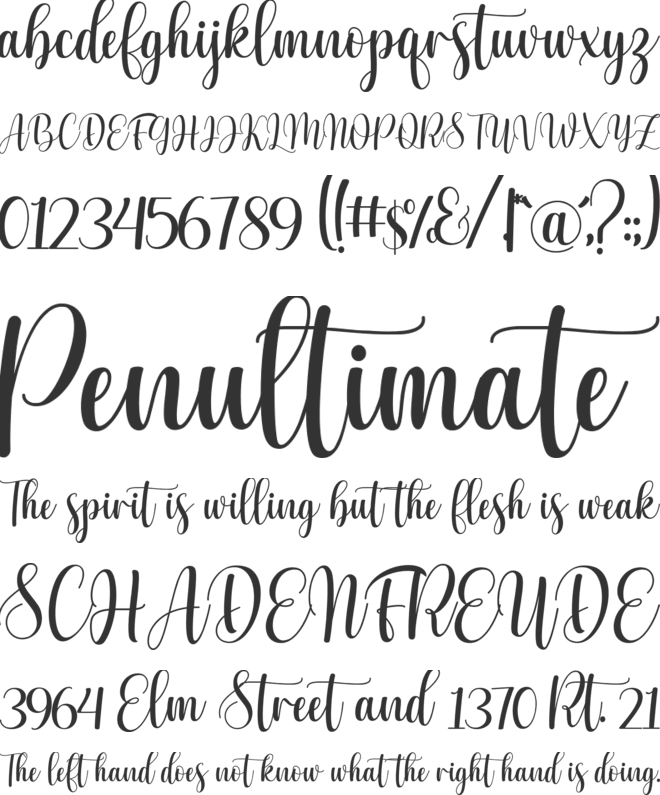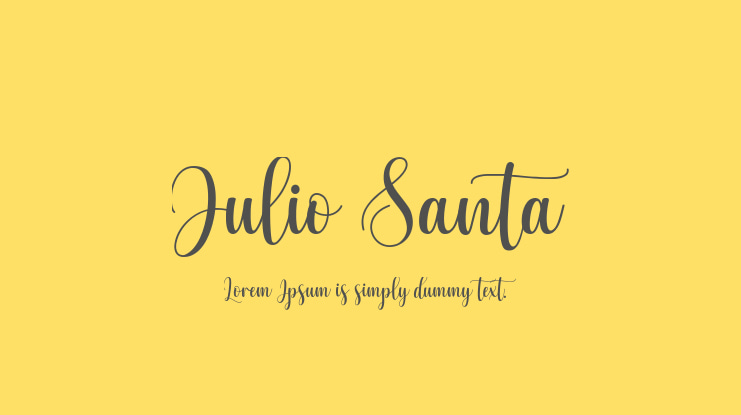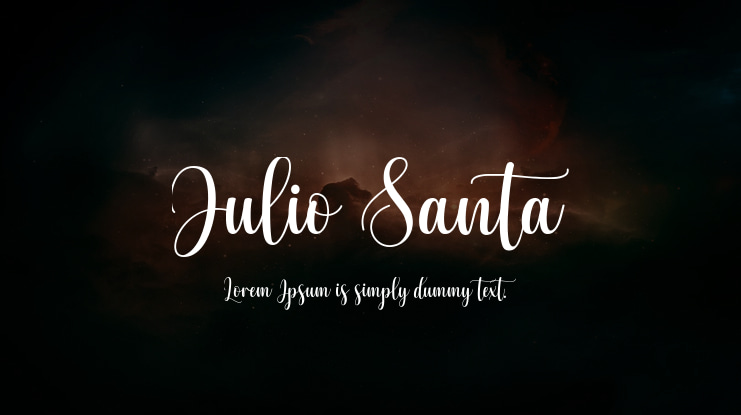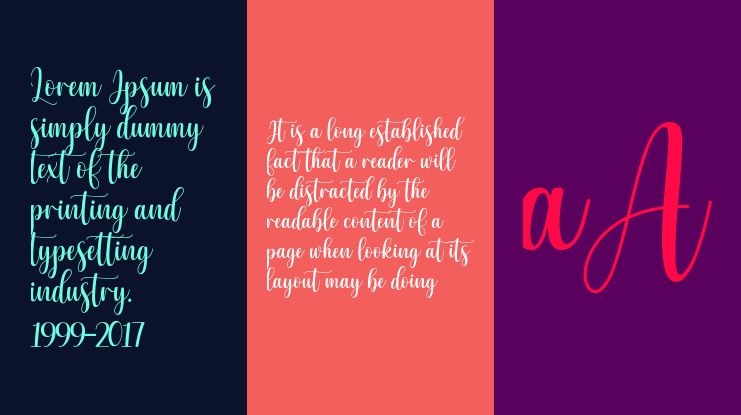
Julio Santa is Decorative script font with a calligraphy flair, Perfect for creating wedding invitation, craft design, and other project that required feminine and romantic style.
For those of you who are needing a touch of romantic, chic and modernity for your designs, this font was created for you!
Font Features
- Full Set of standard alphabet and punctuation.
- Beginning, ending and love swash lowercase.
- Alternates, ligatures and multilingual characters.